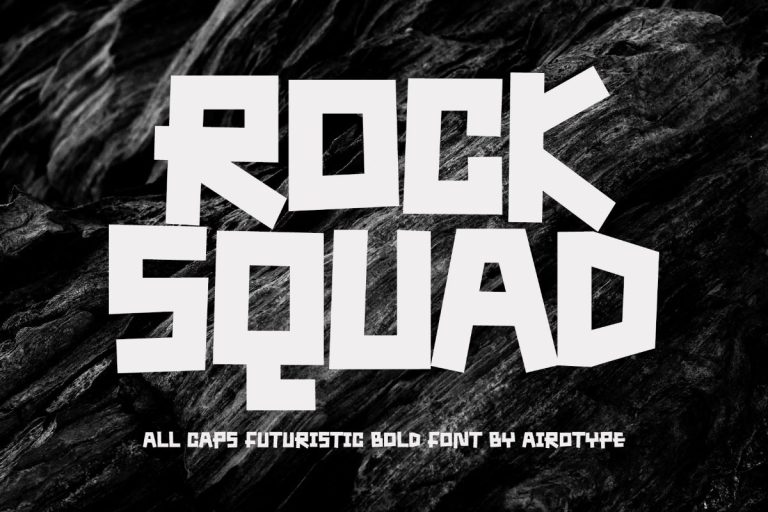
- Rock Squad
Rock Squad
Rock Squad is all caps display font with bold and bouncy style. This font radiates fun, sporty, and spirit.
Rock Squad is perfect font for design with cheerful and bold theme, such as t-shirt, poster, graffiti, logo, sticker, sublimation, tumbler, sport, and many more.